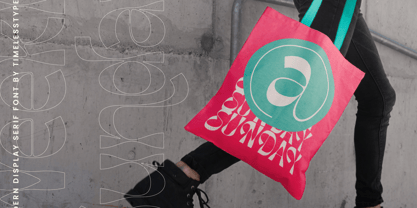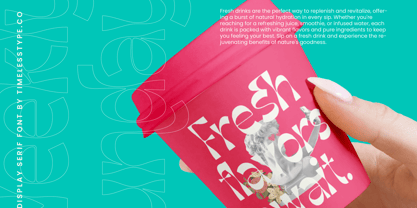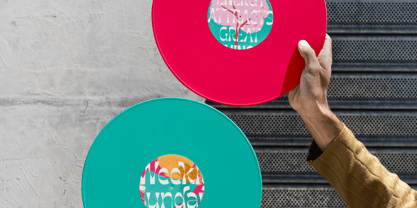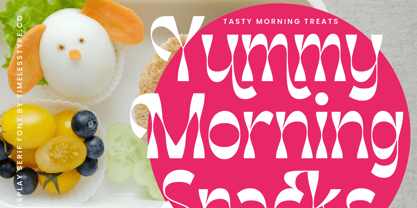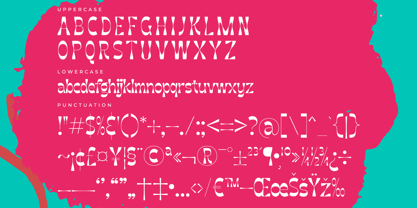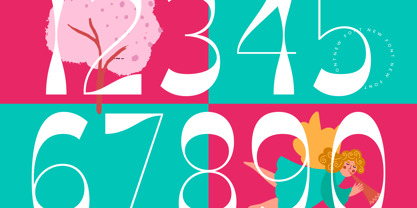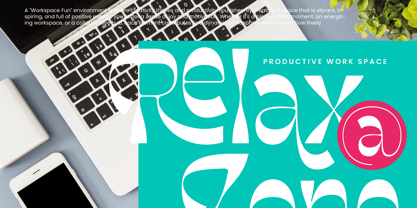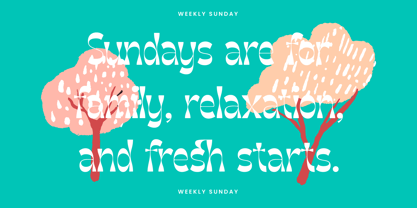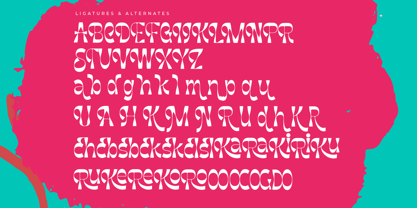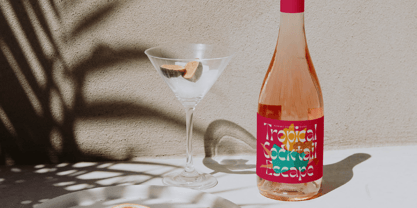
Weekly Sunday
The Weekly Sunday Font Family was designed by Heru Utama Putra and published by Timelesstype Studio. Weekly Sunday contains 2 styles and family package options. More about this family
Weekly Sunday - Modern Display Serif Font , from Timelesstype., Suitable for any projects such as: logos, branding projects, homeware designs, product packaging, mugs, quotes, posters, shopping bags, t-shirts, book covers, name card, invitation cards, greeting cards, label, photography, watermark, special events, and all your other luxury and beautiful projects that need a Luxury Serif taste.